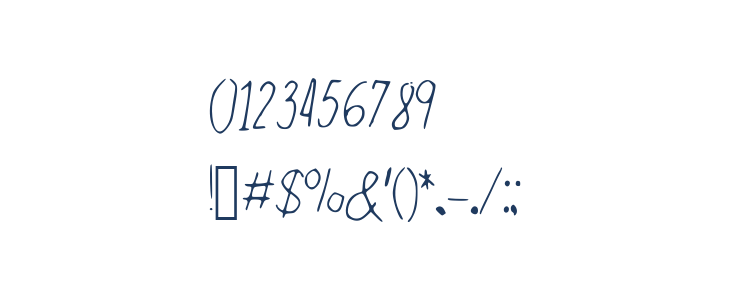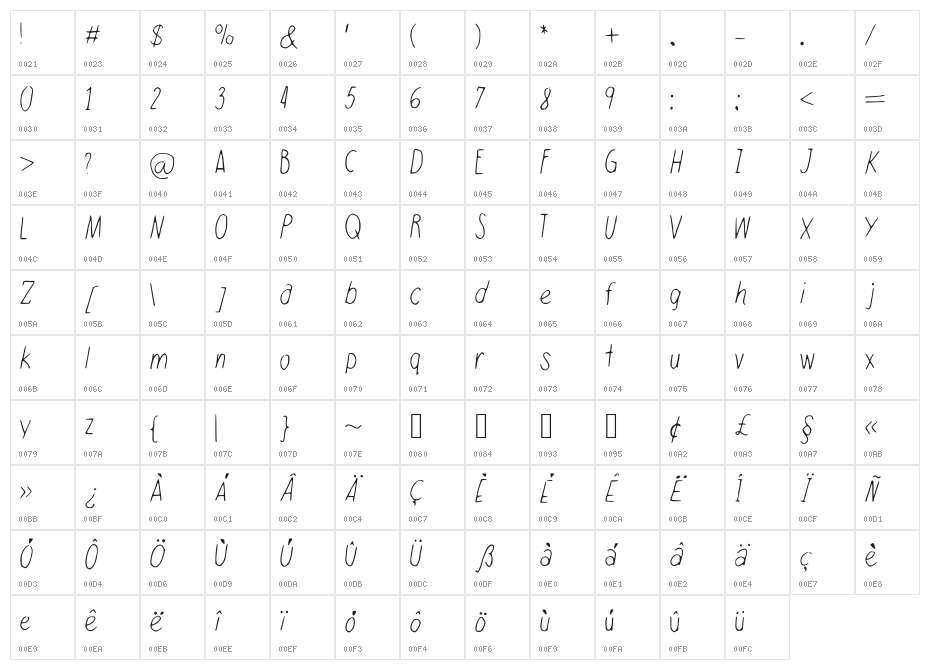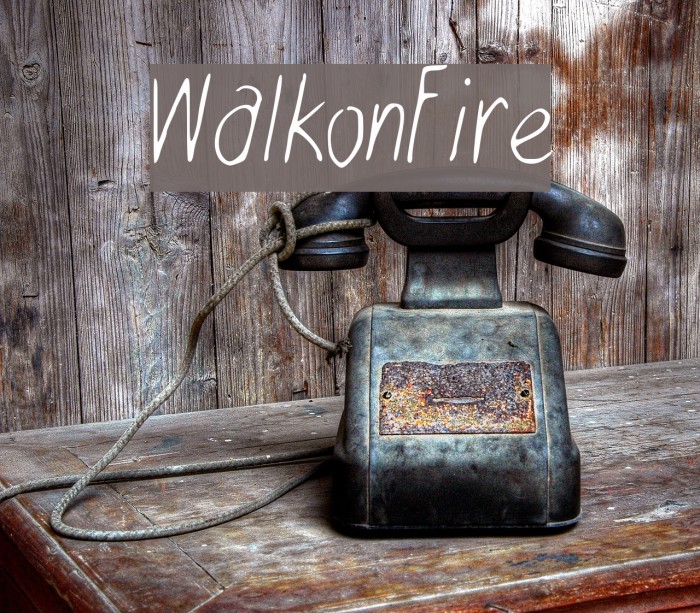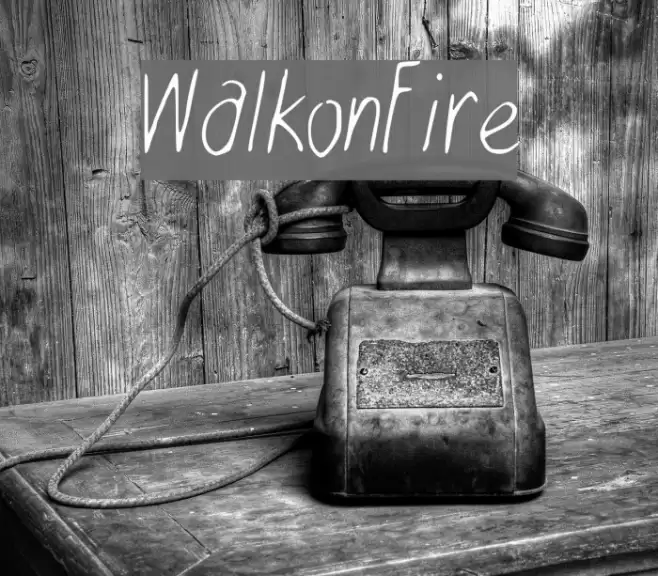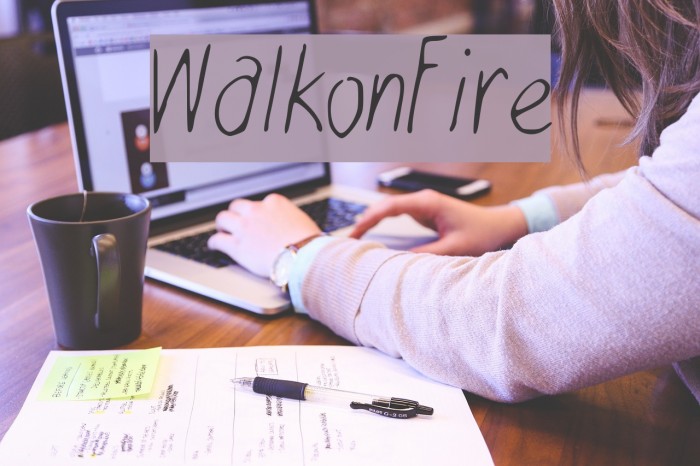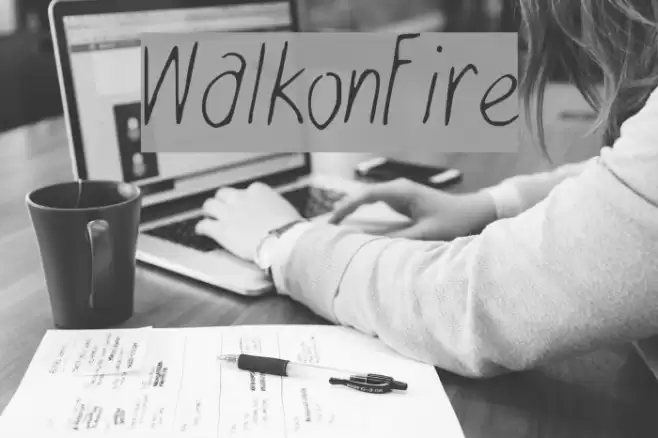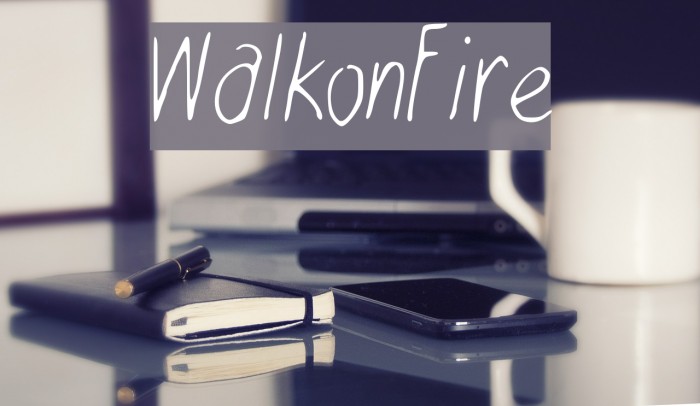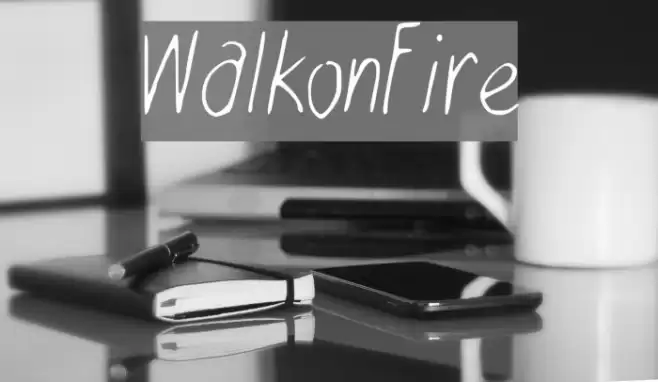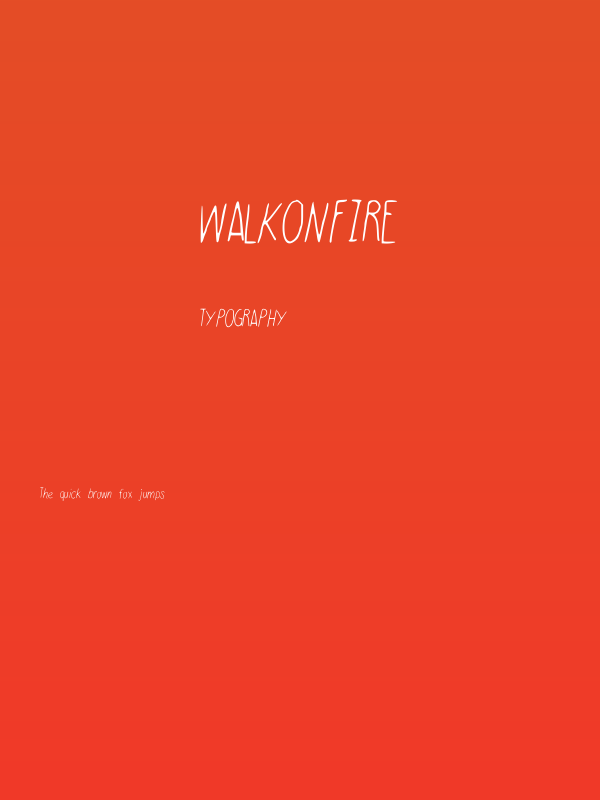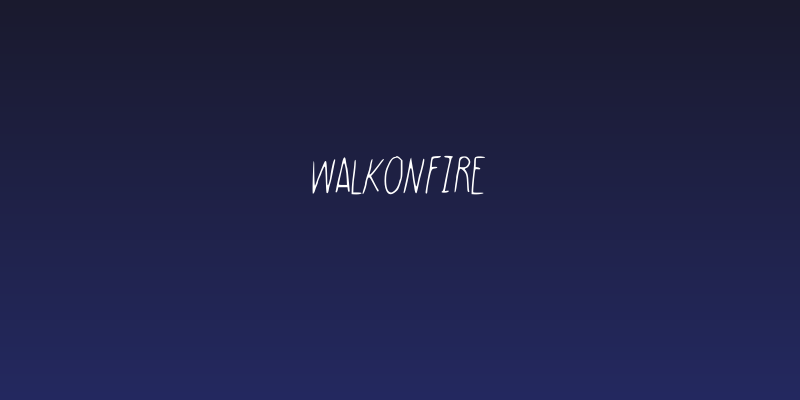
WalkonFire Font
WalkonFire Description
This font features a playful and casual handwritten style, characterized by its slightly irregular and organic letterforms. The strokes are smooth and flowing, giving it a friendly and approachable appearance. The uppercase letters maintain a consistent height, while the lowercase letters exhibit a slight slant, adding to the informal feel. The numbers and special characters are designed to match the overall aesthetic, ensuring a cohesive look across all text elements. The font's unique personality makes it suitable for projects that require a personal touch.